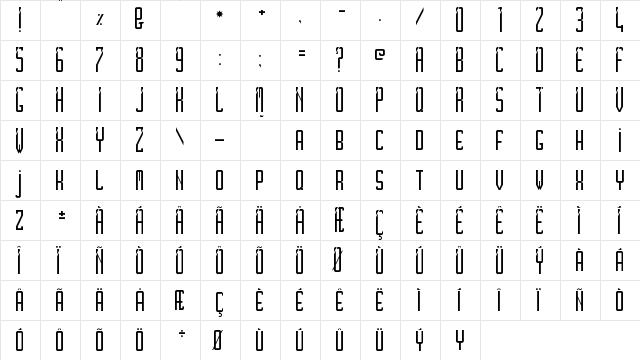
SlimSlashy Regular
Design Context for SlimSlashy Typeface
SlimSlashy offers clean, dependable letterforms without strong stylistic allegiance, making it a practical choice for designers who need flexibility.